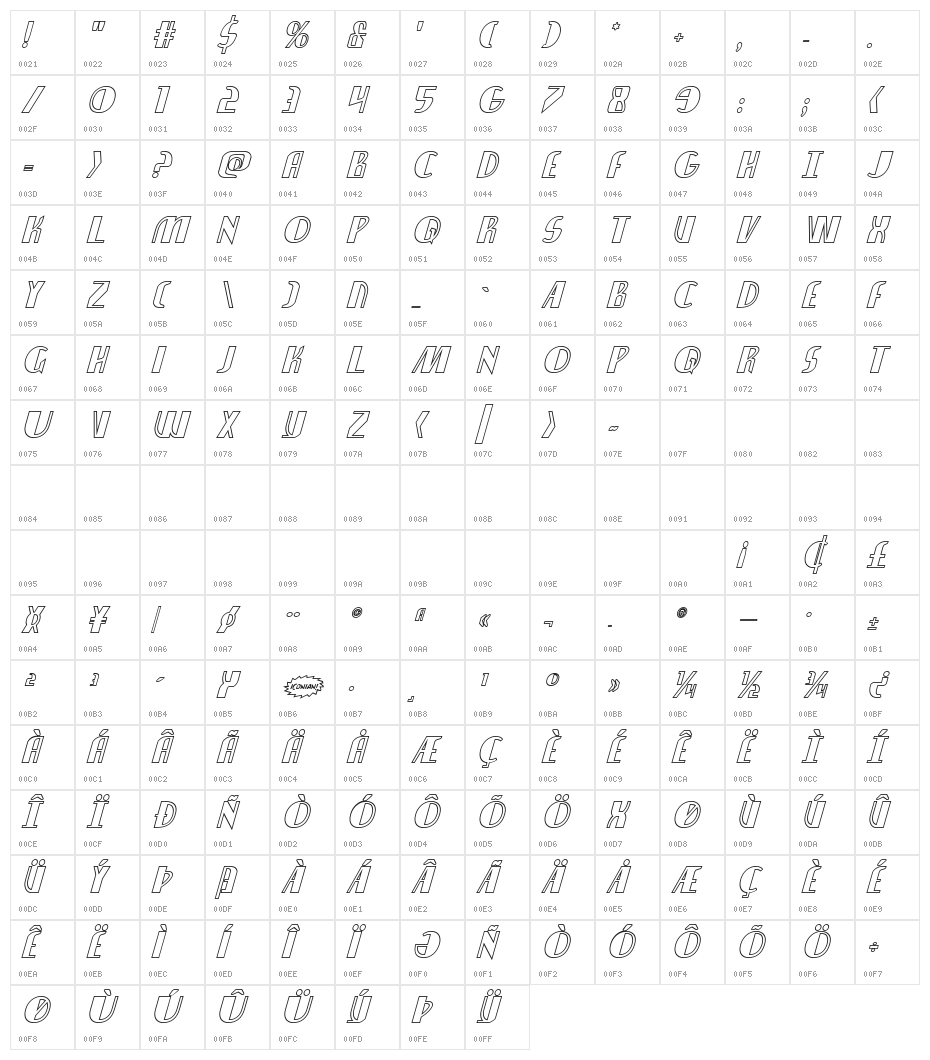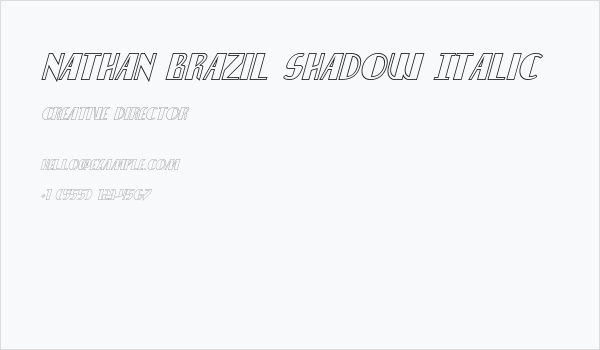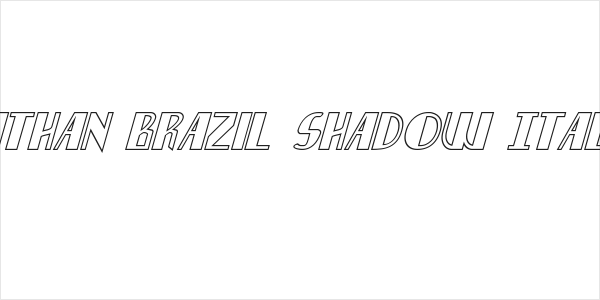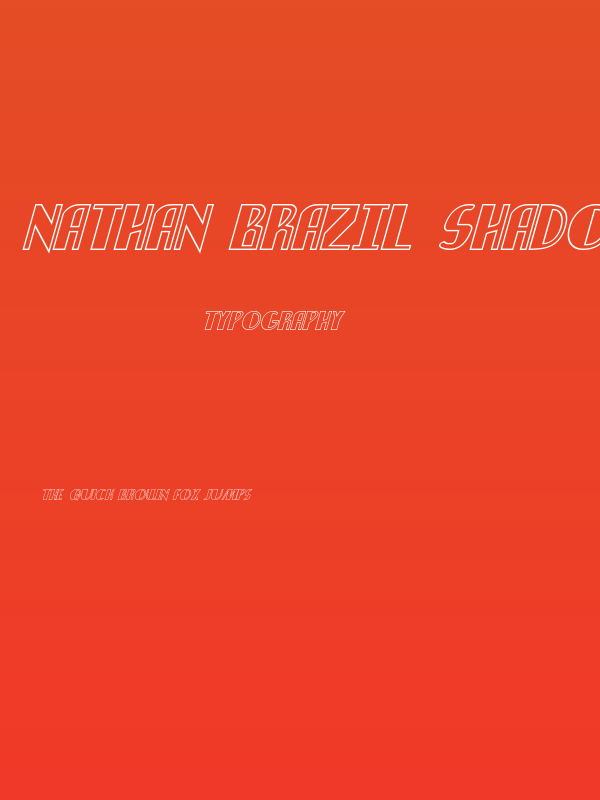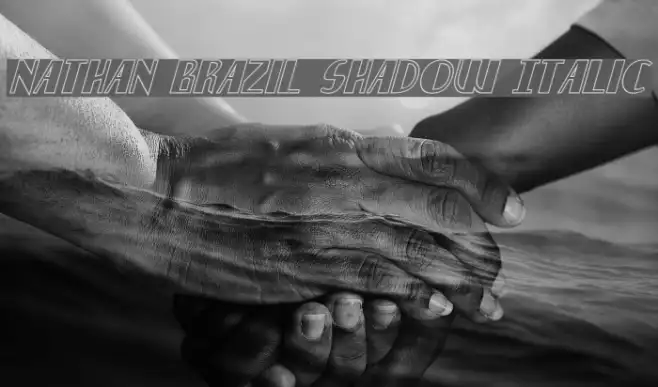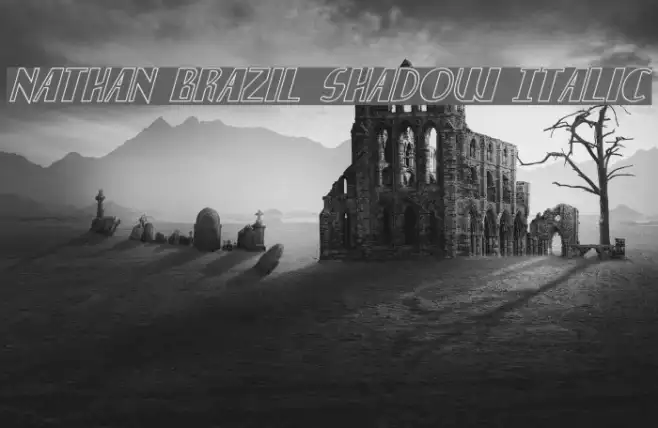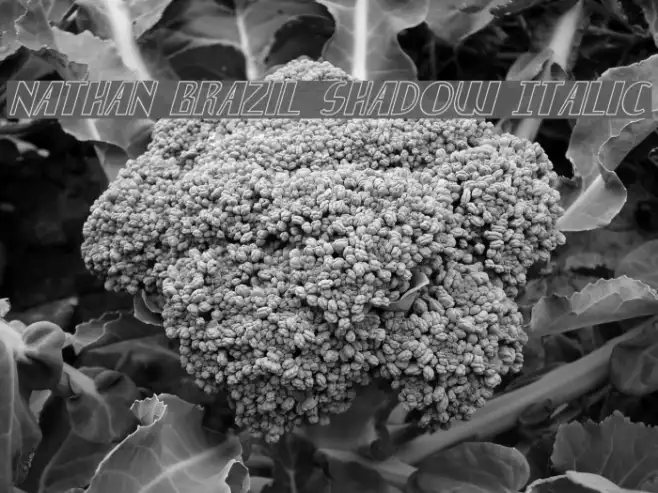
Nathan Brazil Shadow Italic Font
Nathan Brazil Shadow Italic Description
This font features a bold and dynamic design with a shadow effect that gives it a three-dimensional appearance. The characters are italicized, adding a sense of motion and energy. Each letter is outlined, creating a striking contrast between the inner and outer edges. The font has a modern and futuristic feel, making it suitable for eye-catching designs. The uppercase and lowercase letters maintain a consistent style, with rounded edges and a slight slant. Numbers and special characters are designed to match the overall aesthetic, ensuring uniformity across all elements.
| Proposed Projects | Ideal for logos, posters, and branding materials that require a bold and modern look. |